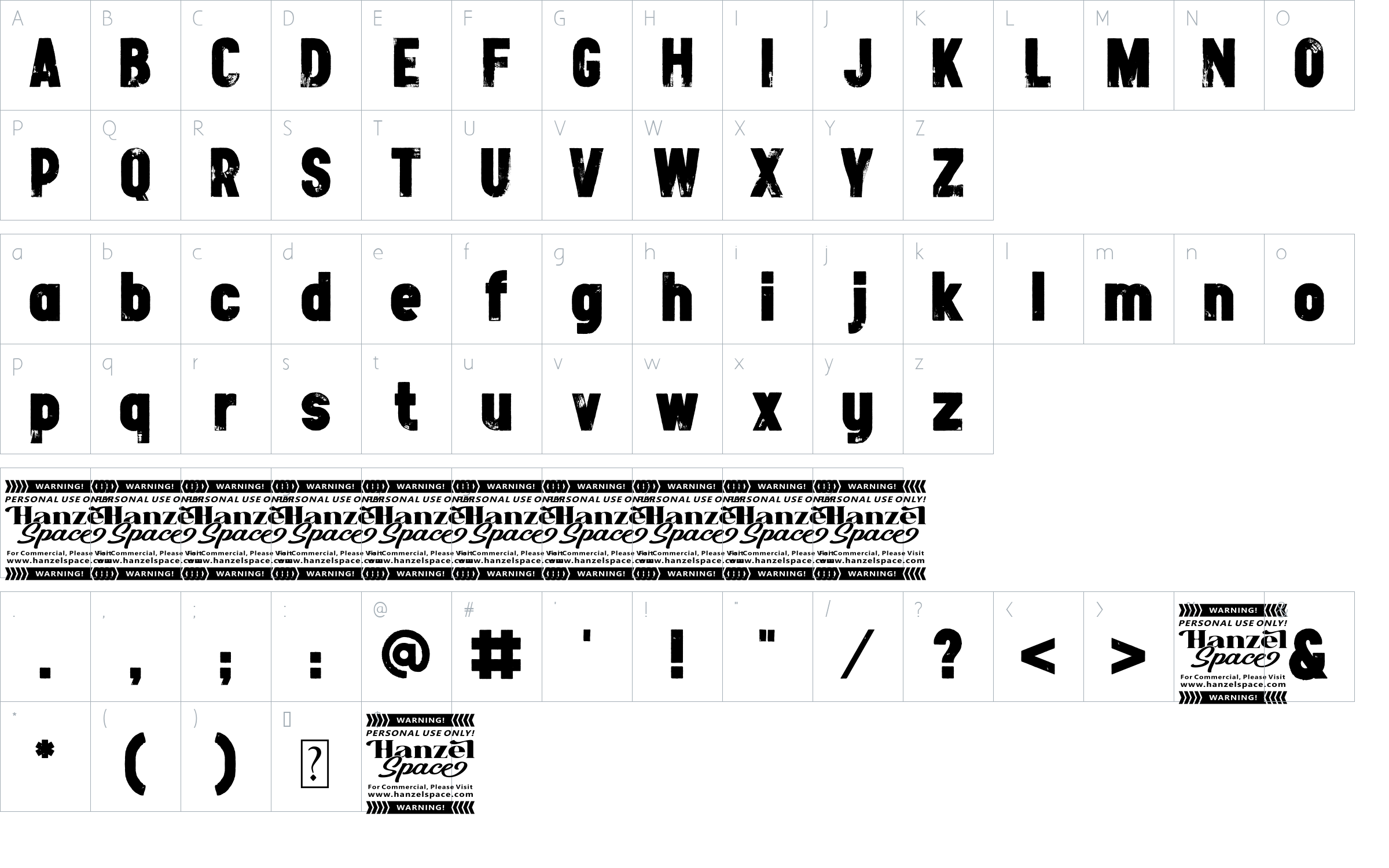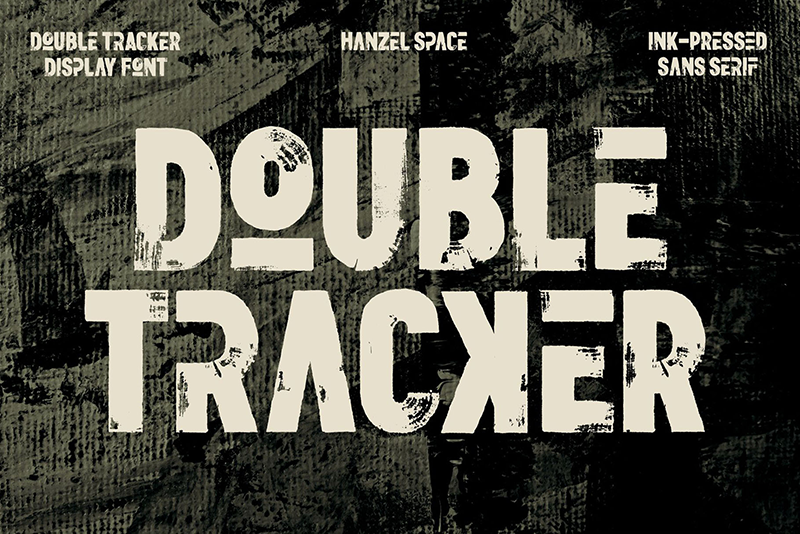
Double Tracker – Letterpress Font Font
About Double Tracker – Letterpress Font
Double Tracker - Letterpress Font
Double Tracker is an inspiration for a font with paint strokes so that it has a texture that seems natural, done with an original ink stroke process.. The strong and sturdy design makes it ideal for eye-catching headlines, branding, packaging, magazines, sports, logos, and more.
The script includes a set of uppercase characters, numerals, symbols
– Full Set of standard alphabet and punctuation
– Multilingual Characters (ÁÂÄÀÅÃÆÇÐÉÊËÈÍÎÏÌÑÓÔÖÒØÕÚÛÜÙÝŶŸỲ áâäàåãæçðéêëèíîïìñóôöòøõœúûüùýŷÿỳ€£¥)